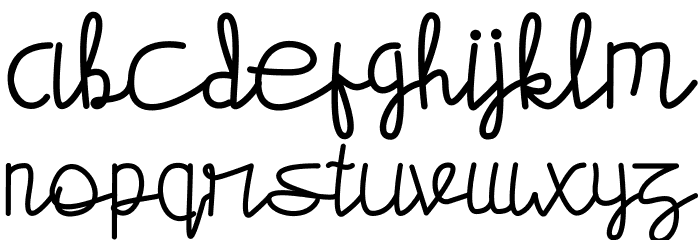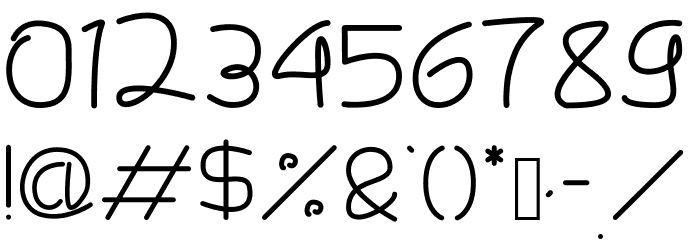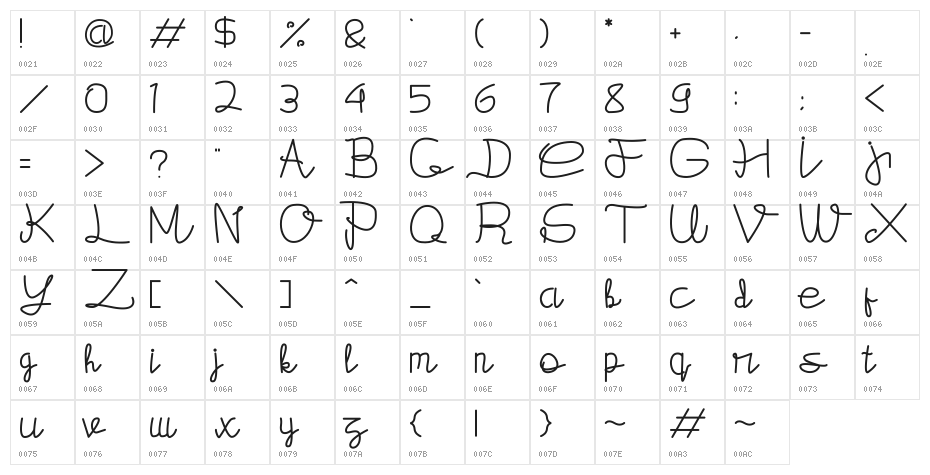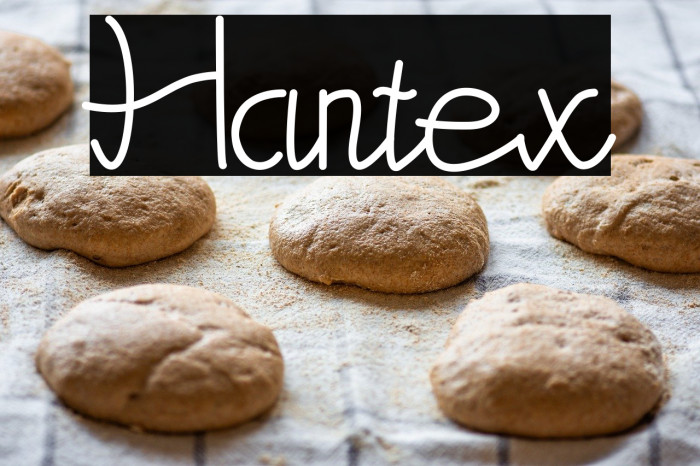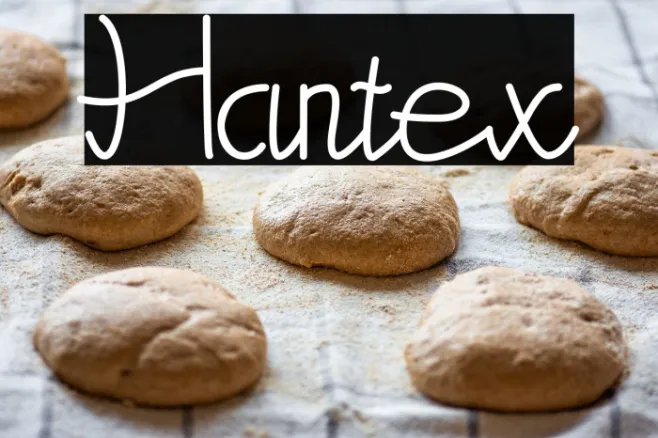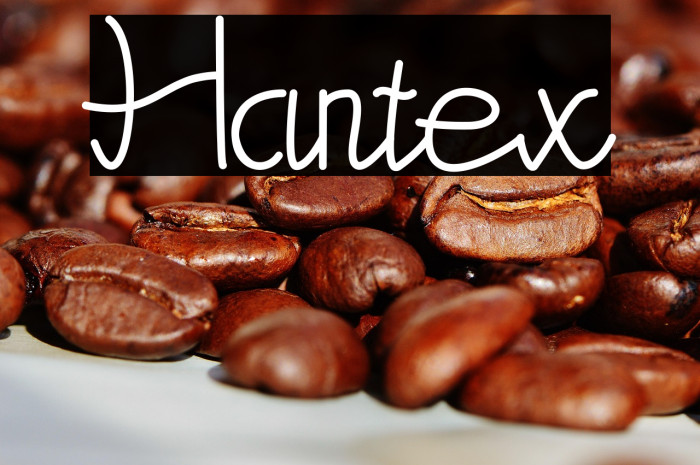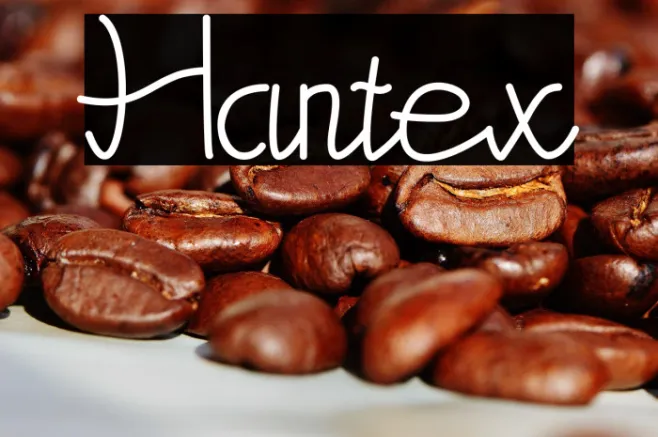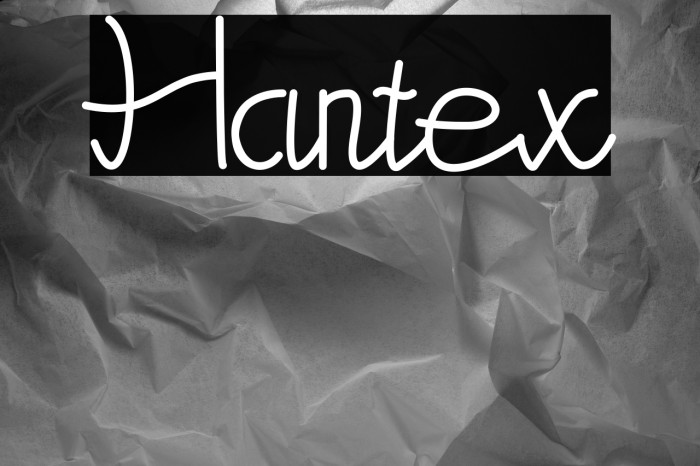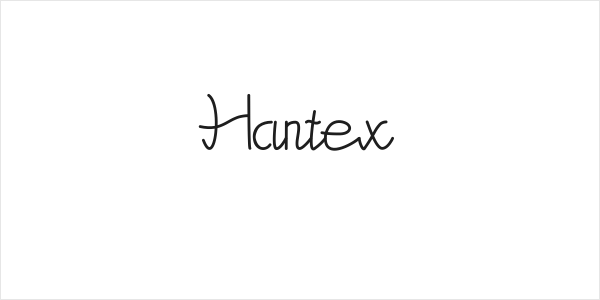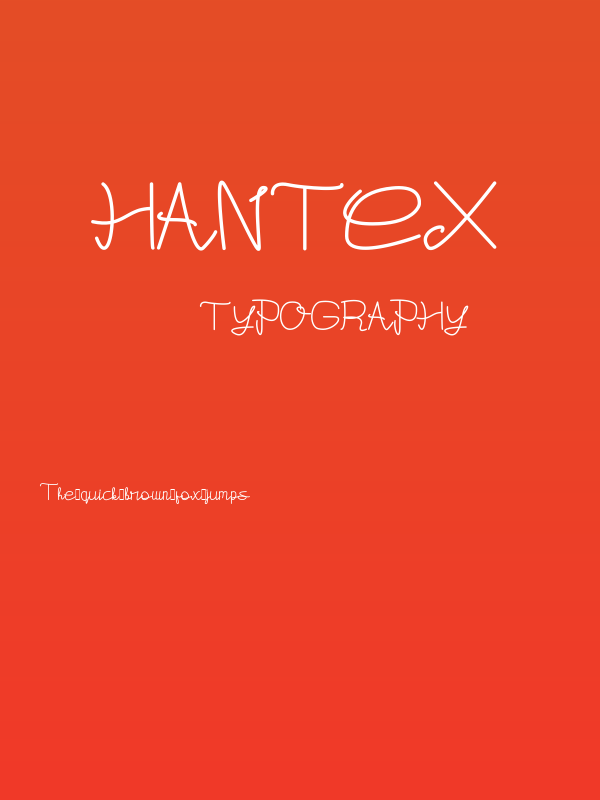
Hantex Font
This font features a playful and whimsical script style, characterized by its flowing, interconnected letters. The uppercase letters exhibit a unique blend of curves and loops, giving them a lively and dynamic appearance. The lowercase letters maintain a consistent style with smooth, rounded forms that enhance readability while retaining a casual and friendly tone. The numerals are clear and well-defined, matching the overall aesthetic of the font. Special characters are creatively designed, adding to the font's versatility. This font is ideal for projects that require a personal touch, such as invitations, greeting cards, or branding materials that aim to convey warmth and approachability.
A playful and whimsical script font with flowing, interconnected letters.
- Font: Hantex
- Proposed Projects: Ideal for invitations, greeting cards, and branding materials seeking a personal touch.